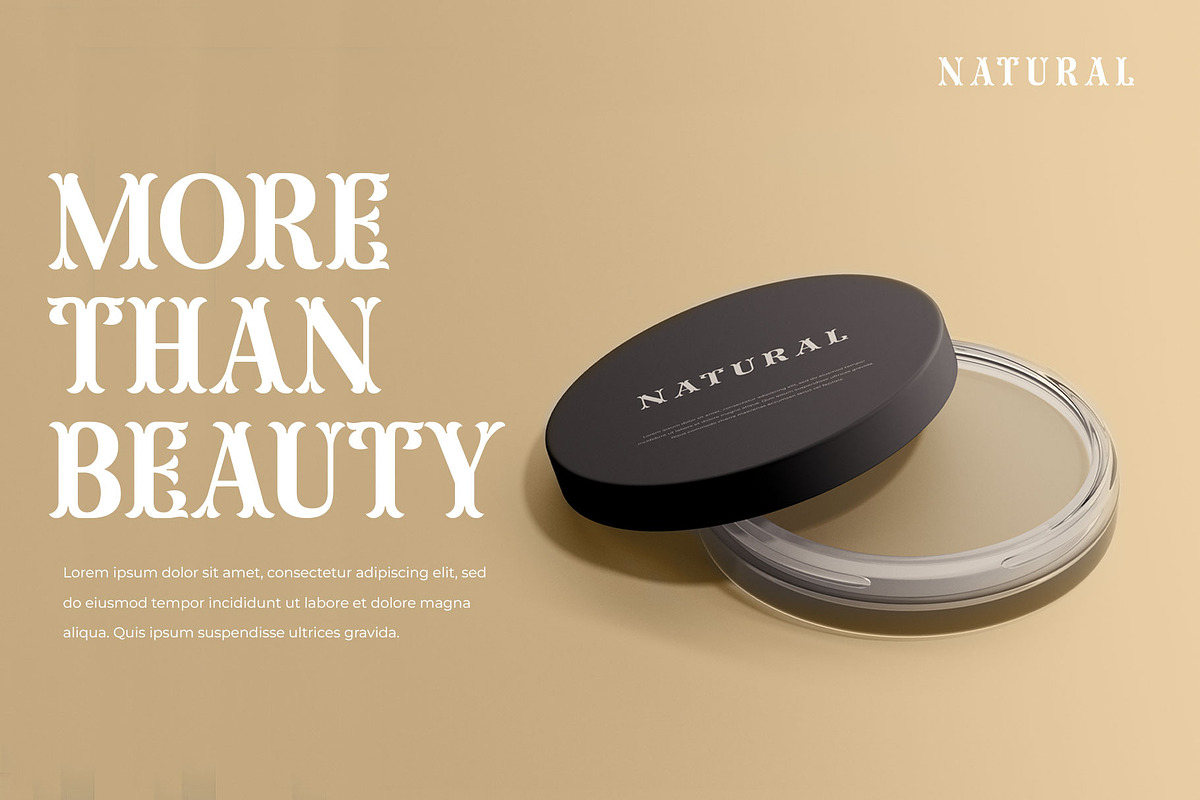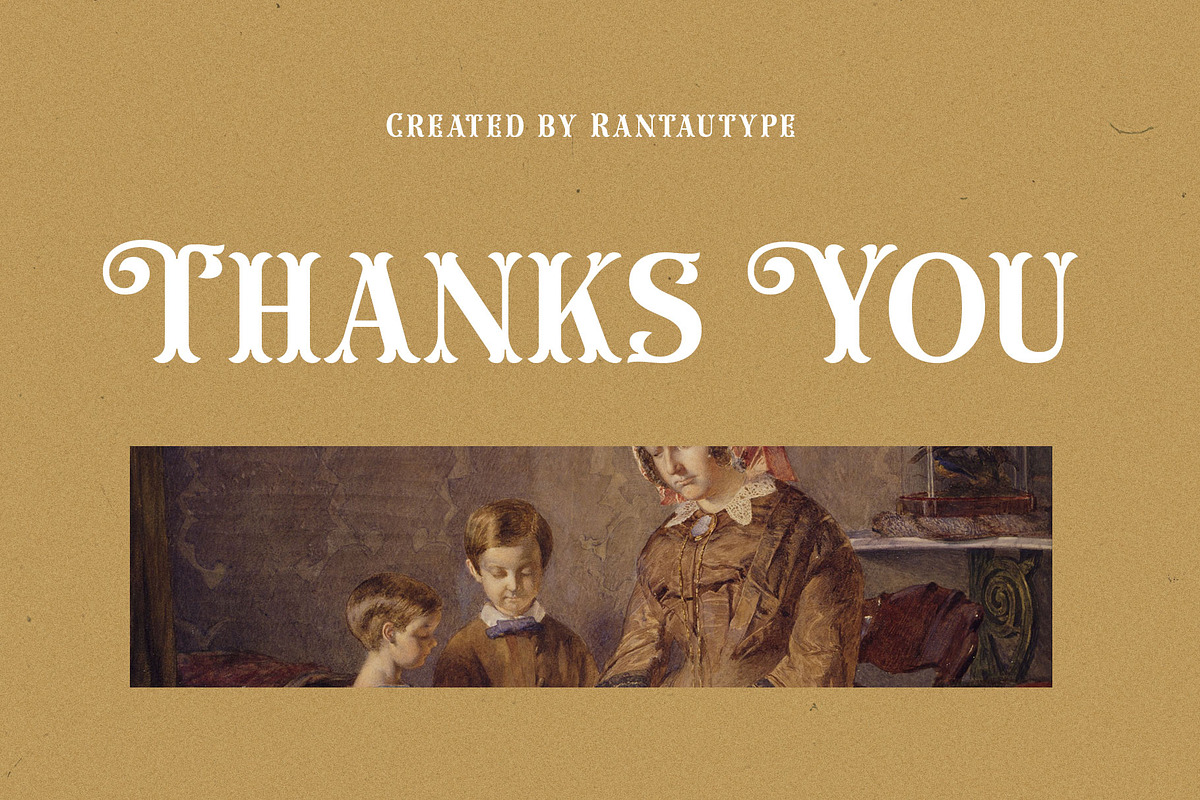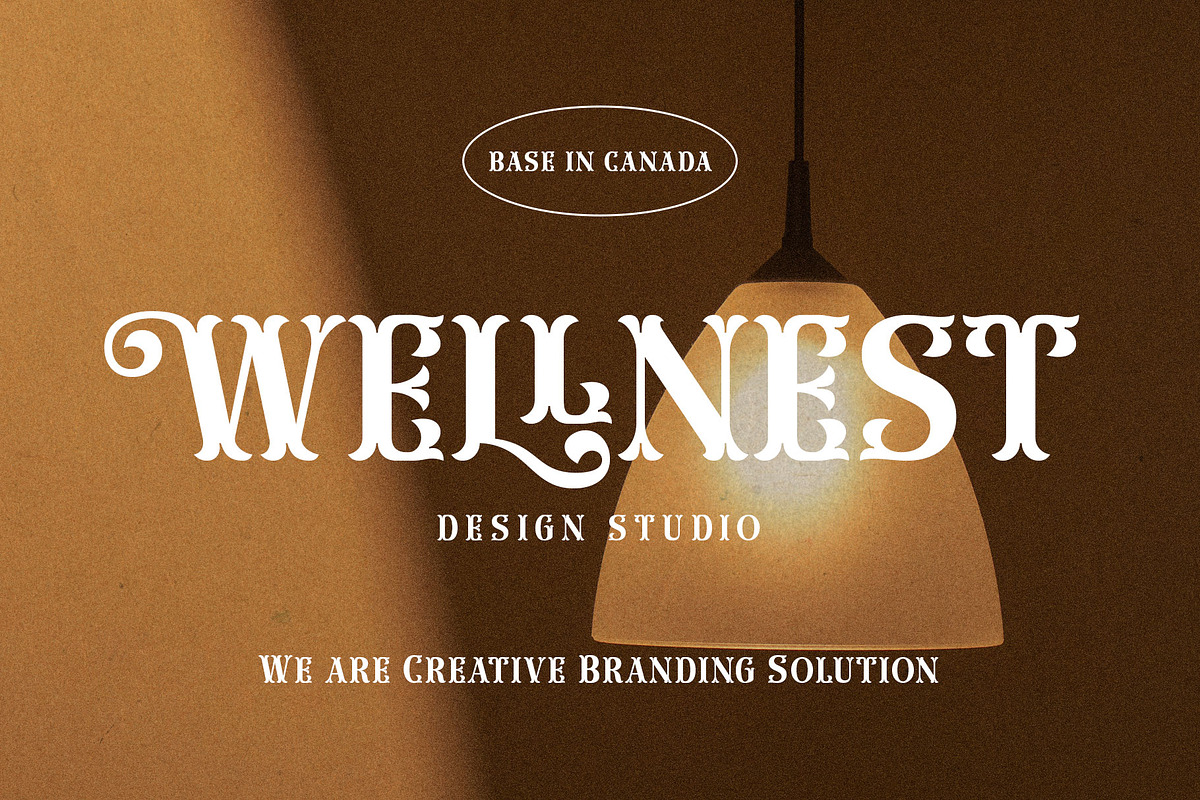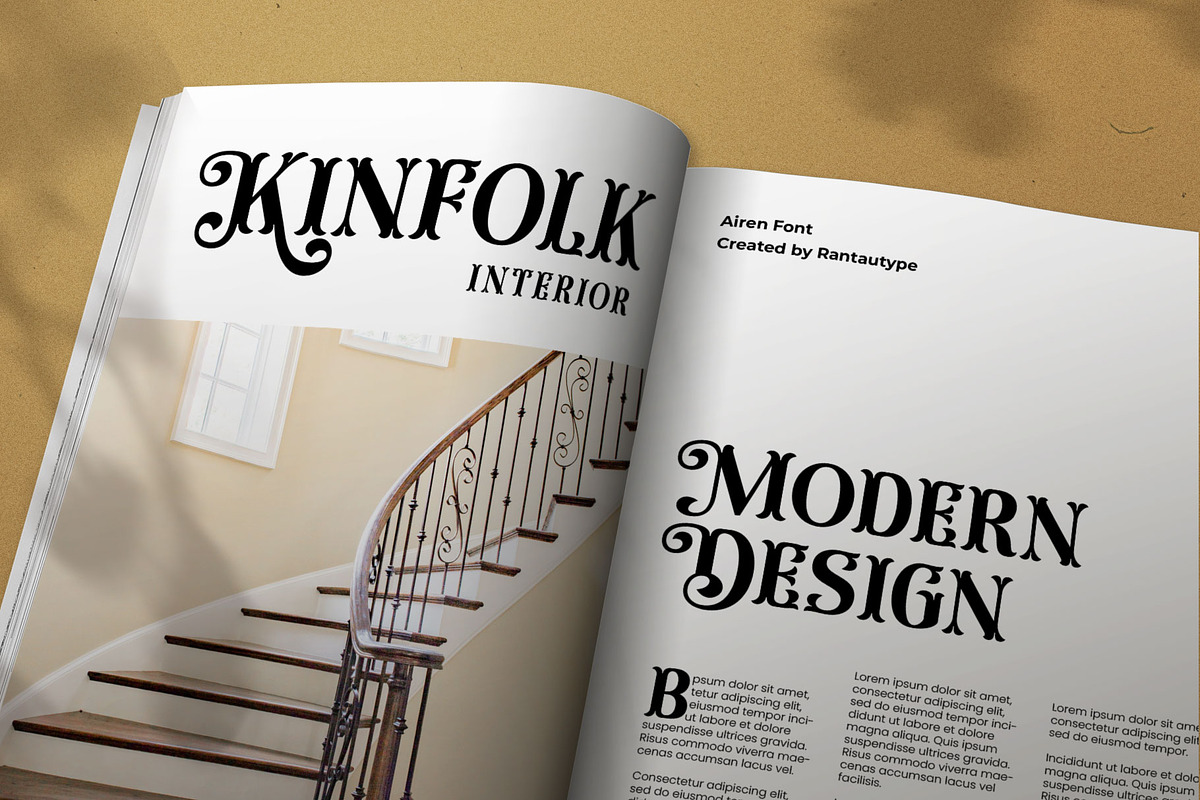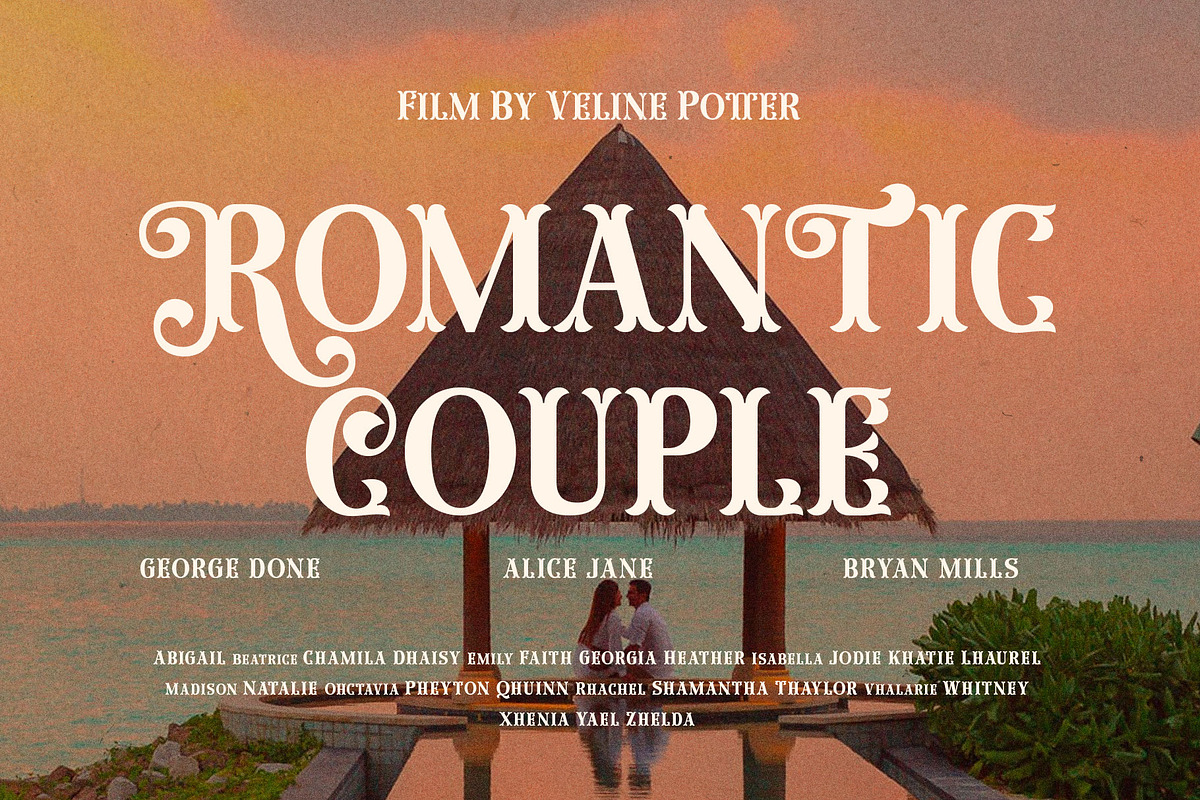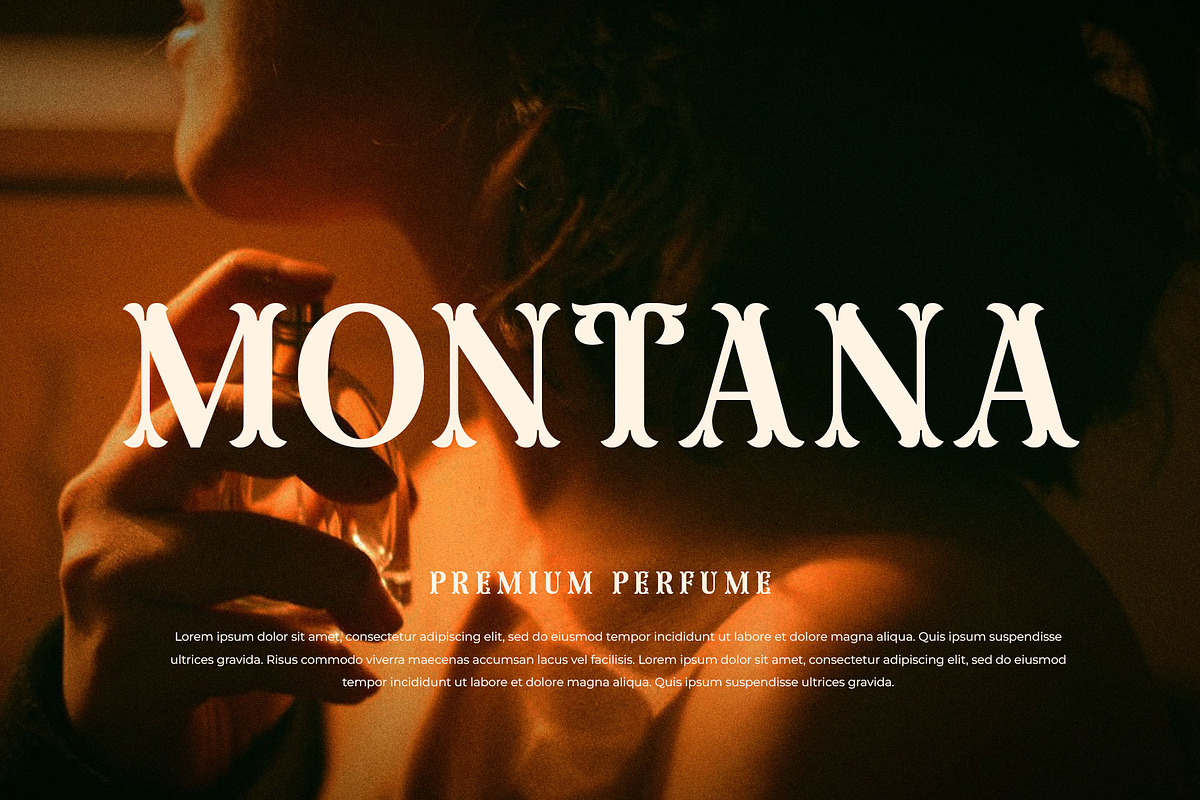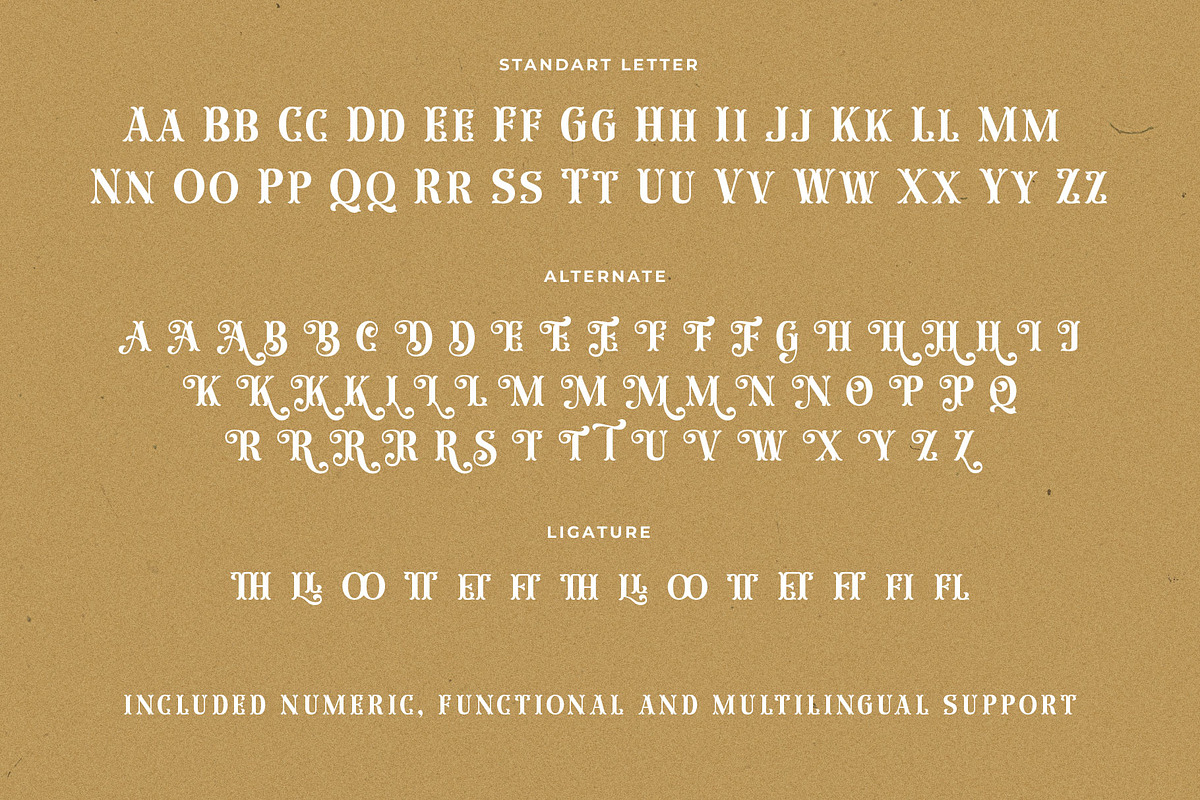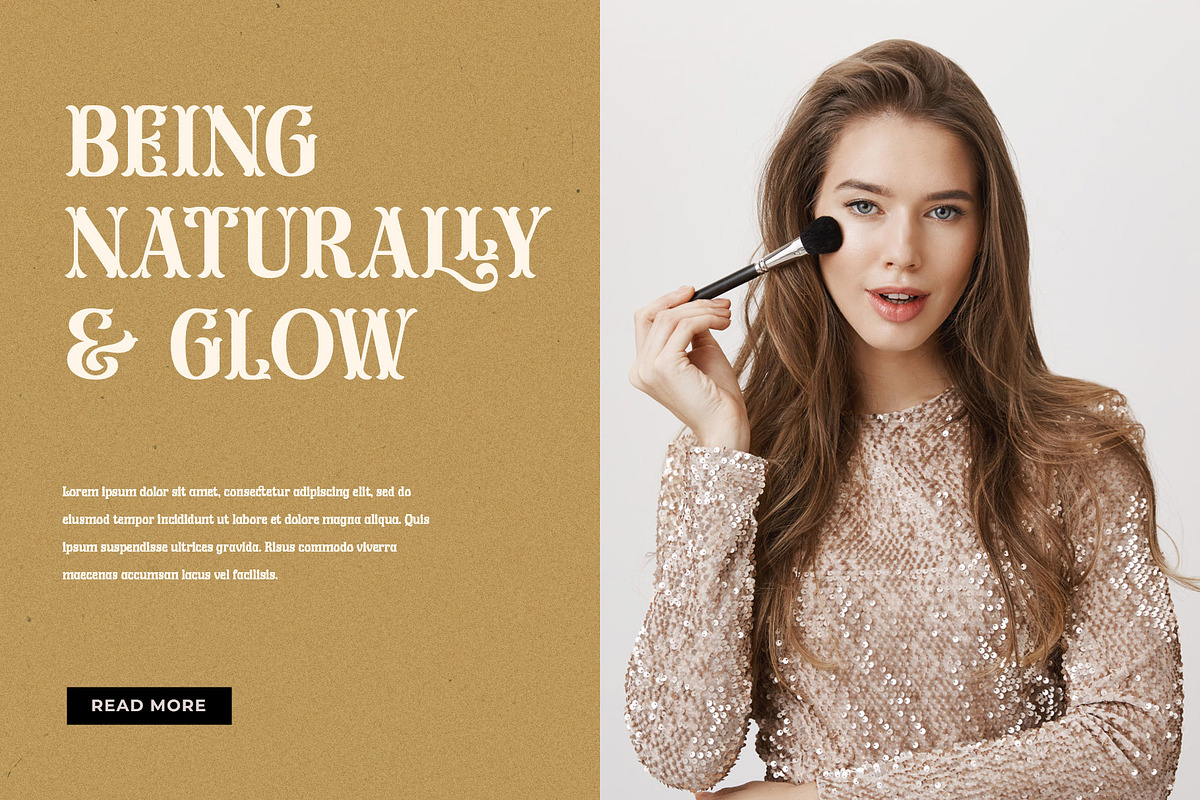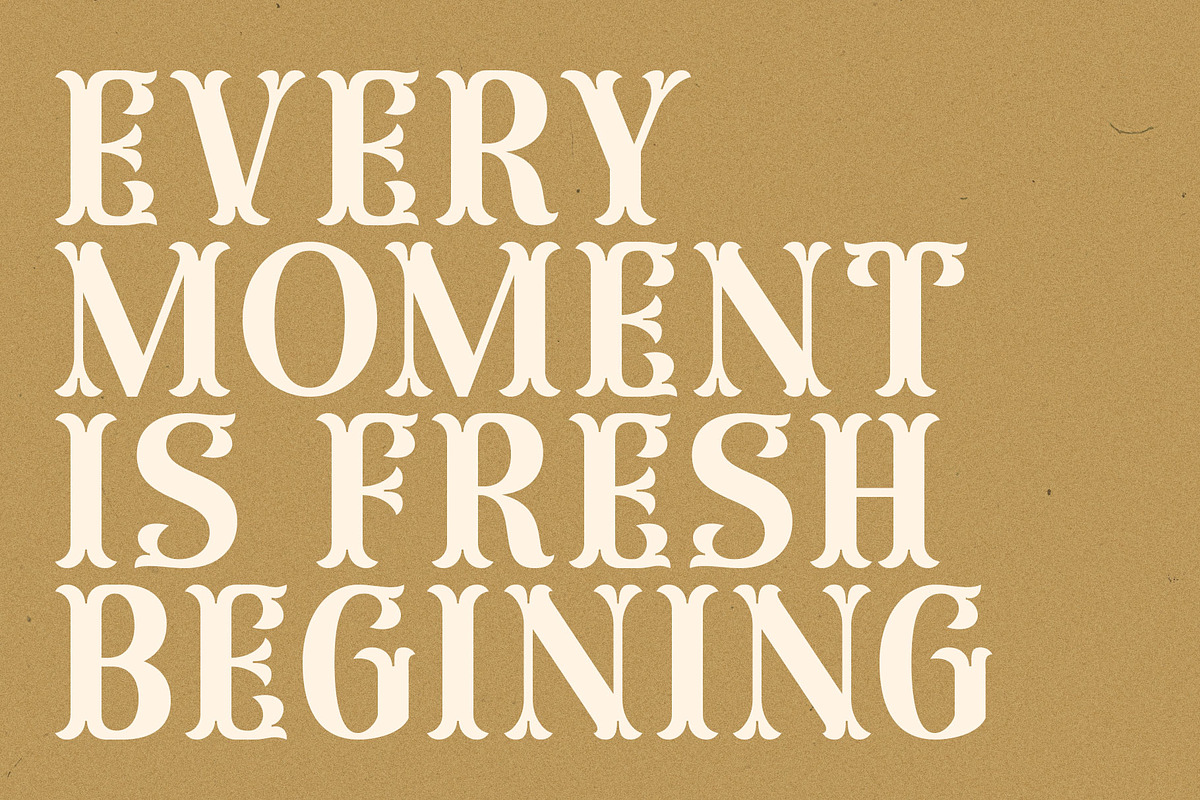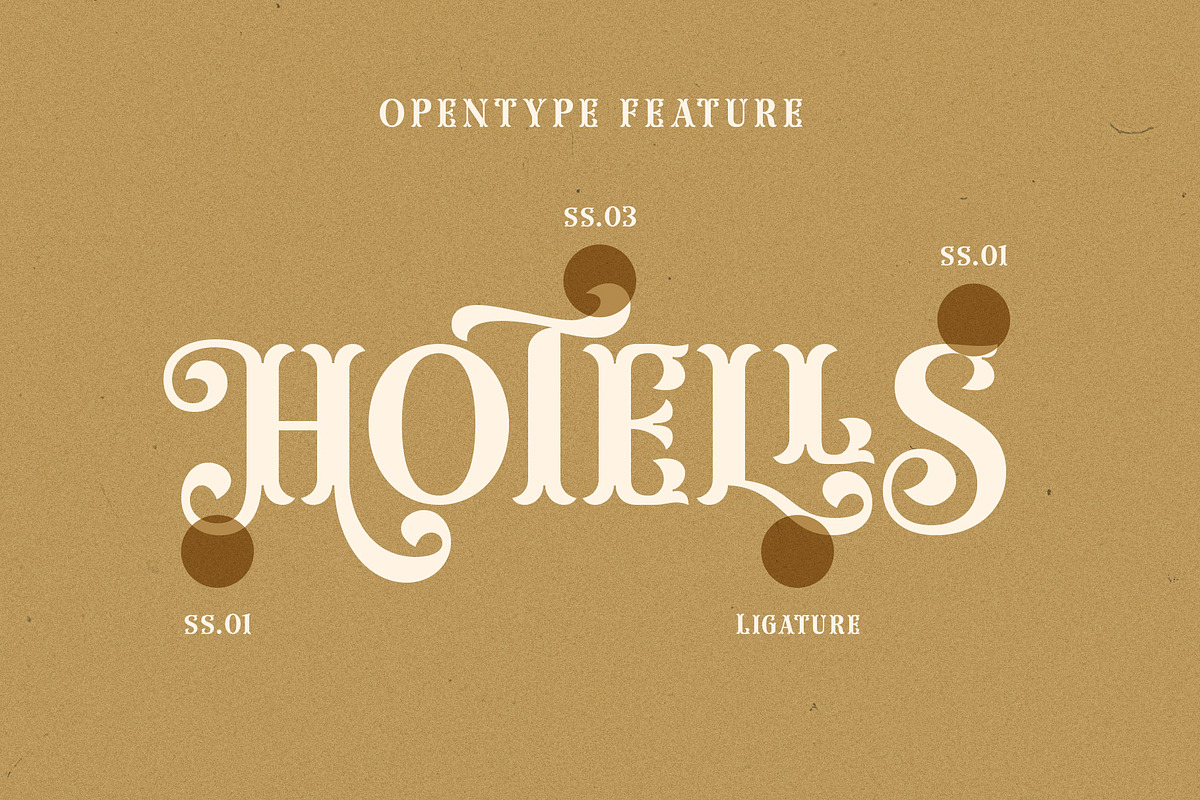
Airen Decorative Display font
Airen is beautiful display typeface inspired by nineteenth century type we keep this font look retro and Memoriable. Airen come with more alternate and ligature to make it more option design. Airen support dozens of languages which use the Latin and Greek alphabets.
Airen separate in reguler and italic, is a beautiful choice for any creative endeavor, creating fun, modern, chic, lifestyle design such as logos, title, cover, branding, display and magazine, and more. Now you have more choice when using Airen to make you design stand up!!
- Standar letter A-Z and a-z
- Alternate and Ligature